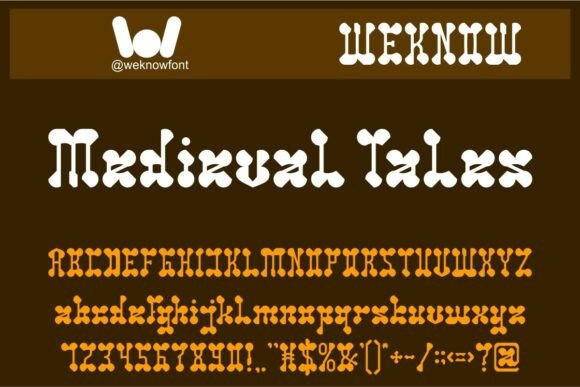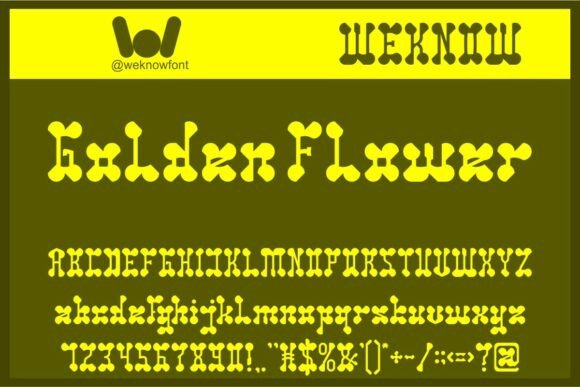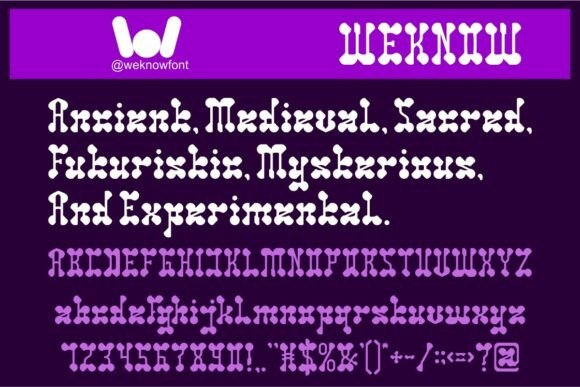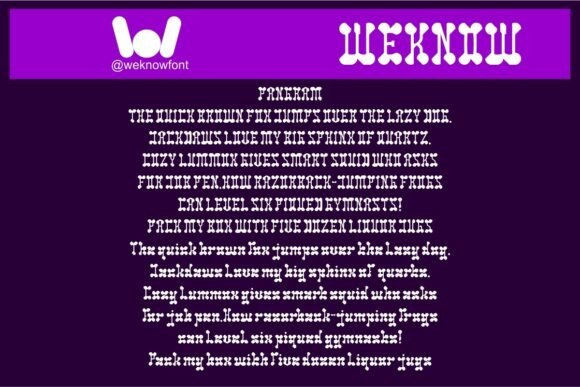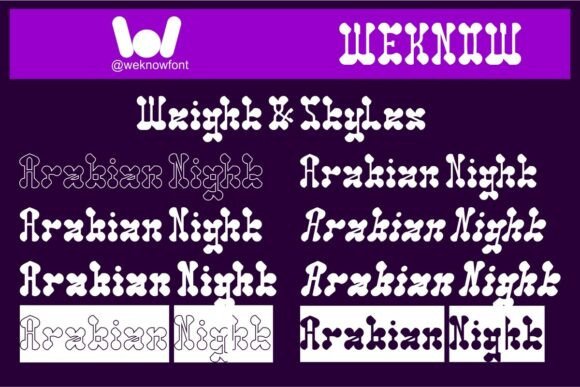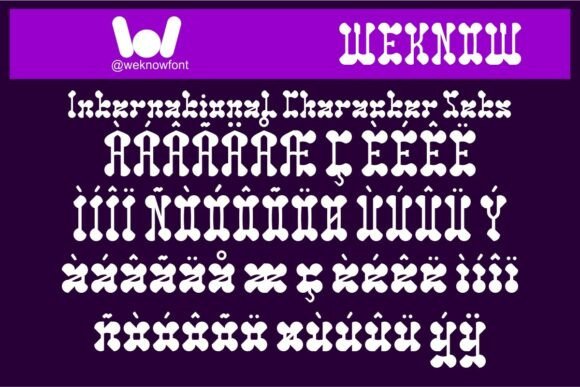
The Enchanting World of Arabian Night Font
Have you ever been working on a design project, pouring your heart and soul into it, only to hit a roadblock when it comes to choosing the perfect font? I certainly have. It was during one of those moments, while brainstorming ideas for a fantasy-themed book cover, that I stumbled upon the captivating Arabian Night Font. This enchanting display font has been a game-changer for me, and I’m excited to share its magic with you.
A Personal Encounter with Arabian Night
I recall the exact moment I discovered Arabian Night. I was struggling to find a font that could capture the essence of a mystical, otherworldly tale. As I scrolled through my font library, Arabian Night caught my eye with its unique, bulbous letterforms that seemed to dance across the screen. It was as if the font was beckoning me to take a closer look. I was immediately drawn to its bold, psychedelic twist on traditional architectural inspiration, and I knew I had found the perfect fit for my project.
Unveiling the Magic of Arabian Night
Arabian Night is more than just a font – it’s an experience. Its fluid letterforms echo the silhouettes of ancient domes and minarets, reimagined through a modern, trippy lens. The thick, undulating strokes and gravity-defying curves create a rhythmic, almost hypnotic texture that will leave your audience spellbound. Here are some of the features that make Arabian Night an extraordinary choice for your design projects:
- ✨ Unique letterforms: Inspired by traditional architecture, with a bold, psychedelic twist
- ✅ Hypnotic texture: Thick, undulating strokes and gravity-defying curves create a rhythmic effect
- 🔥 Fantasy-themed: Perfect for book covers, music branding, restaurant logos, and festival posters
- 💫 Professional ingenuity: Adds a sense of legendary mystery to your visual identity
- ✨ The font’s versatility – it can be used for a wide range of design projects, from book covers to posters
- ✅ The unique letterforms, which add a touch of whimsy and fantasy to any design
- 💫 The way the font seems to come alive on screen, with its undulating strokes and curves
While Arabian Night is an exceptional font, there are a few things to keep in mind:
- ⚠️ Legibility: Some of the more intricate letterforms may be difficult to read at smaller sizes
- 🤔 Pairing: The font’s bold, psychedelic style may require careful pairing with other fonts to avoid visual overload
The Story Behind Arabian Night
The story of Arabian Night begins with a designer who was fascinated by the mystical and the unknown. Inspired by the intricate architecture of ancient mosques and palaces, the designer sought to create a font that would capture the essence of these structures. The result was Arabian Night, a font that blends traditional inspiration with a bold, psychedelic twist.
Q: What makes Arabian Night unique?
A: Arabian Night’s unique blend of traditional architectural inspiration and bold, psychedelic style sets it apart from other fonts.
Q: Is Arabian Night difficult to read?
A: While some of the more intricate letterforms may be challenging to read at smaller sizes, Arabian Night is generally a clear and legible font.
Q: Can I use Arabian Night with other fonts?
A: Yes, Arabian Night can be paired with other fonts to create a unique visual identity. However, be mindful of the font’s bold style and choose complementary fonts carefully.